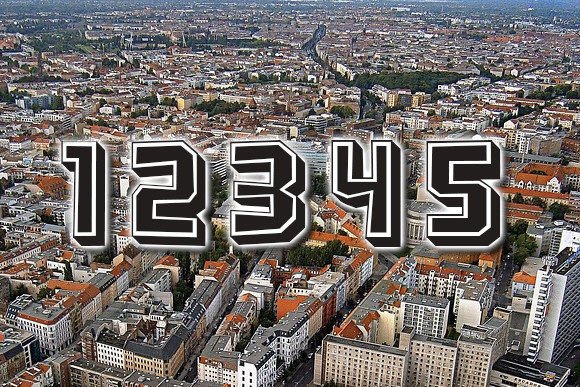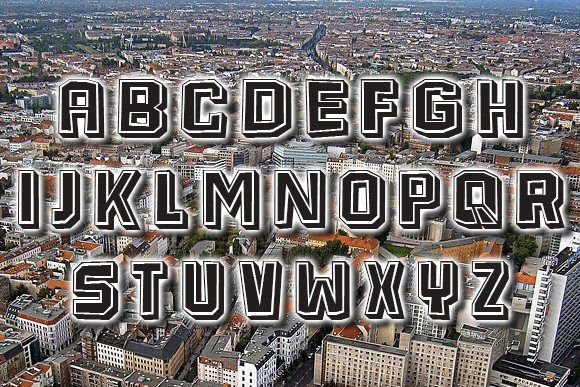
The Ultimate Guide to Berlin Font: Elevate Your Designs with a Blocky 3D Typeface
I’ll never forget the time I was working on a project for a trendy client, and I needed a font that would make their poster design pop. I scoured the internet, tried out countless fonts, but nothing seemed quite right. That was until I stumbled upon the Berlin Font. This blocky 3D typeface has been a game-changer for my designs, and I’m excited to share its awesomeness with you! 😊
Berlin Font: The Good, the Great, and the Quirks
What I Love About Berlin Font
- ✨ Unique 3D effect: The Berlin Font’s blocky 3D design adds a fun and modern touch to any project.
- ✅ Highly versatile: Perfect for posters, flyers, t-shirts, and more, this font can handle a wide range of design applications.
- 🎨 Easy to customize: With OpenType features and glyphs, you can experiment with different styles and alternates to make the font your own.
While the Berlin Font is an amazing addition to any design project, there are a few things to keep in mind:
- 🤔 Legibility at small sizes: Due to its blocky design, the font may become less legible at very small sizes. Use it for headlines or titles for best results.
- ⚠️ Limited suitability for body text: The Berlin Font is best used for short bursts of text, such as headings or captions. It’s not ideal for long blocks of body text.
The Story Behind Berlin Font
The Berlin Font was inspired by the vibrant streets of Berlin, Germany. Its designer aimed to capture the city’s edgy, modern spirit in a blocky 3D typeface. The result is a font that’s both fun and functional, perfect for designers looking to add some personality to their work.
| Font Name | Berlin Font |
| Author | vladimirnikolic |
| What type of projects is Berlin Font best suited for? | The Berlin Font is ideal for posters, flyers, t-shirts, and other designs where you want to make a bold statement. |
| Can I use Berlin Font for body text? | While possible, the Berlin Font is best used for short bursts of text, such as headings or captions, due to its blocky design. |
| Is Berlin Font available in different weights or styles? | Yes, the Berlin Font comes in various weights and styles, allowing you to experiment with different looks and feels. |